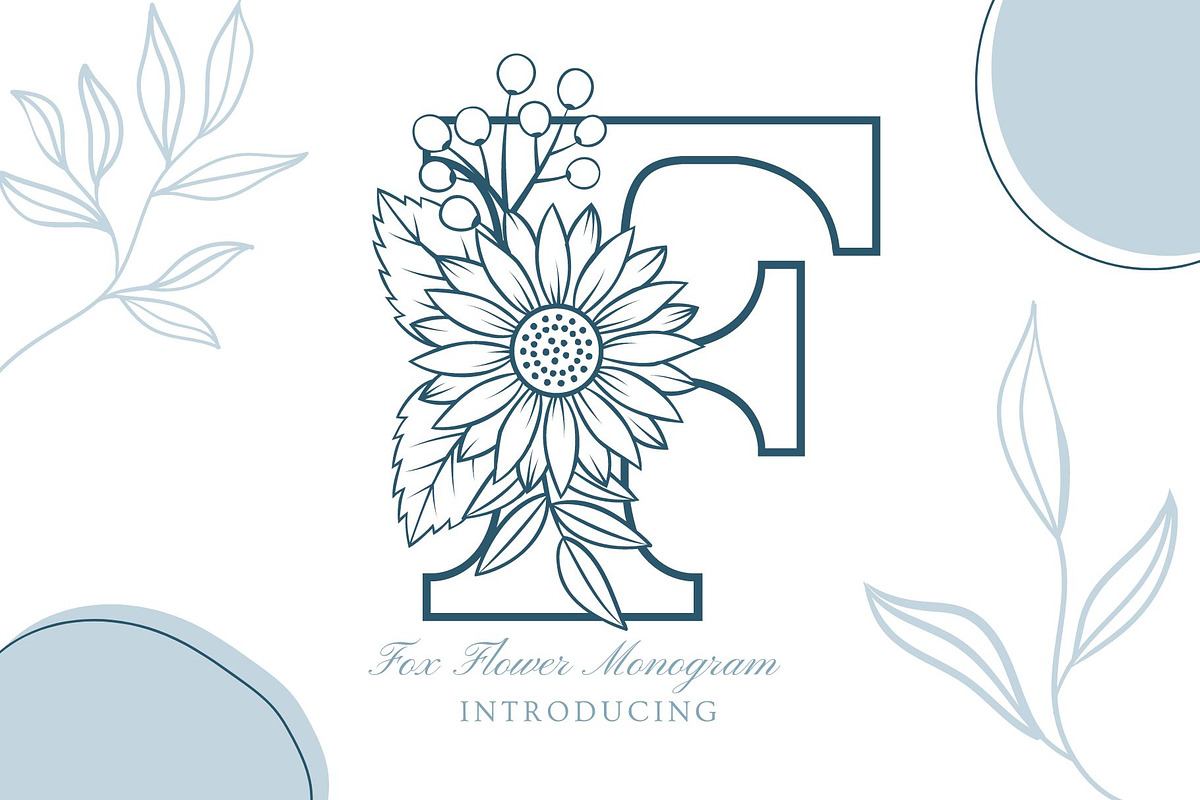
Fox Flower Monogram Font Free Download
Fox Flower Monogram Font Free Download is an elegant and sophisticated monogram-style typeface designed to bring a touch of luxury and nature-inspired beauty to your designs. With intricate floral details and refined, custom lettering, this font is perfect for creating personalized monograms, wedding invitations, luxury branding, logos, and high-end designs.
The font's elegant curves, paired with delicate floral embellishments, create a timeless and refined aesthetic. Whether you're designing for a boutique, a wedding, or a luxury brand, Fox Flower Monogram will add an enchanting, nature-inspired charm to your typography.